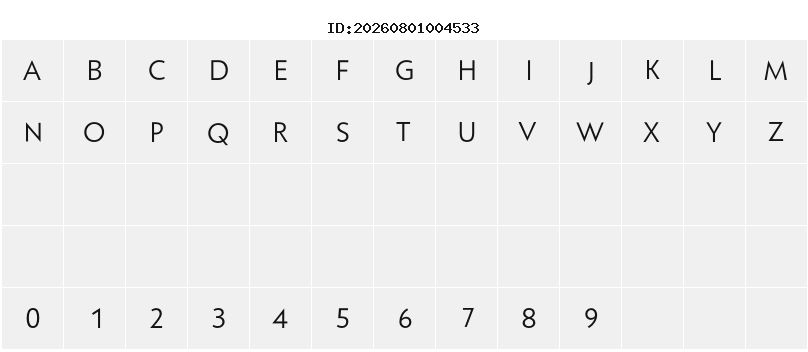
Larimar Preview
• Font Name: Larimar
• Full Font Name: LarimarSansRegular
• PostScript Name: LarimarSansRegular
• Character Count: 47
• Manufacturer: Alex Sven
About Larimar.otf
Larimar.otf is a modern, elegant sans-serif font designed for ultimate readability and visual harmony. Perfect for branding, headlines, web design, and print materials.